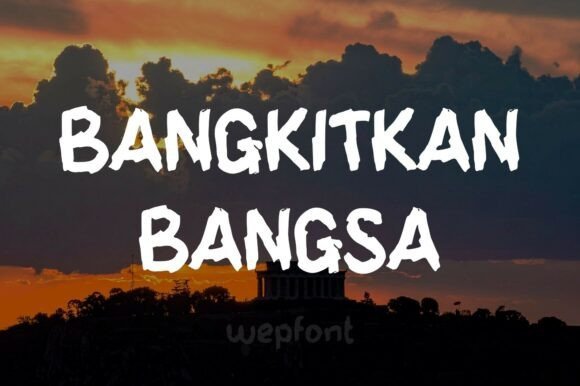
Unleashing the Power of “Bangkitkan Bangsa Font”
Have you ever stumbled upon a design that stops you in your tracks, making you feel an instant surge of energy and motivation? That’s exactly what happens when you see “Bangkitkan Bangsa Font” in action. This bold, strong, and assertive display font is designed to convey a sense of power, determination, and unity, making it the perfect tool for designers who want to create visuals that inspire and empower.
Whether you’re working on a political campaign, creating social movement posters, or designing national branding, “Bangkitkan Bangsa Font” is the perfect choice. Its thick, confident strokes and slightly condensed structure make it highly visible and commanding attention, while its rugged or distressed edge suggests resilience and a fighting spirit. With this font, designers can create visuals that are truly memorable and capable of rallying support and solidarity.
Bangkitkan Bangsa Font Key Features
- Font Family: Bangkitkan Bangsa is a custom-designed font family that aims to promote national identity and cultural heritage.
- Character Set: Supports a wide range of characters, including Latin, Bahasa Indonesia, and various symbols, making it suitable for multilingual content.
- Unique Characteristics: Bangkitkan Bangsa Font features a unique blend of traditional and modern elements, reflecting the rich cultural heritage of Indonesia while maintaining a contemporary feel.
Bangkitkan Bangsa Font Review
I recently had the chance to try out the Bangkitkan Bangsa Font, and I must say, it’s a unique and intriguing typeface. Here are my thoughts:
- The font’s bold and energetic personality is infectious. It’s perfect for creating eye-catching headings and titles.
- The font’s use of geometric shapes and lines creates a sense of dynamism and movement, making it ideal for modern and minimalist designs.
- The font is highly legible, even at smaller sizes, which makes it suitable for body text and longer blocks of content.
- The font may be too bold and overpowering for more subtle or delicate designs. It’s best used in designs where you want to make a statement.
- The font’s geometric shapes can make it difficult to read at very small sizes or in low-resolution contexts.
The Bangkitkan Bangsa Font is a great addition to any designer’s toolkit, but it’s not for every project. Use it when you want to add a bold, energetic touch to your designs, and be mindful of its limitations in more subtle or delicate contexts.